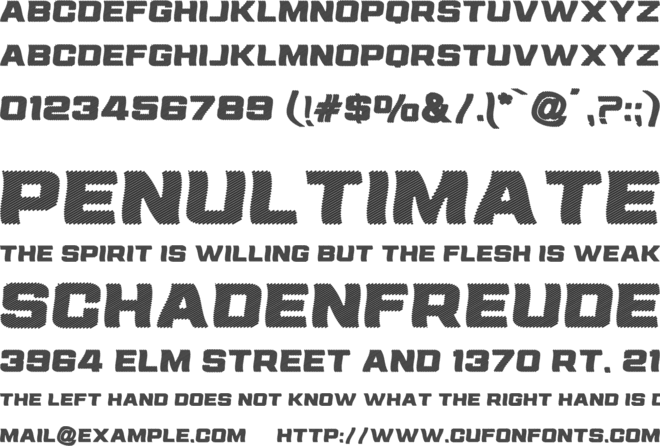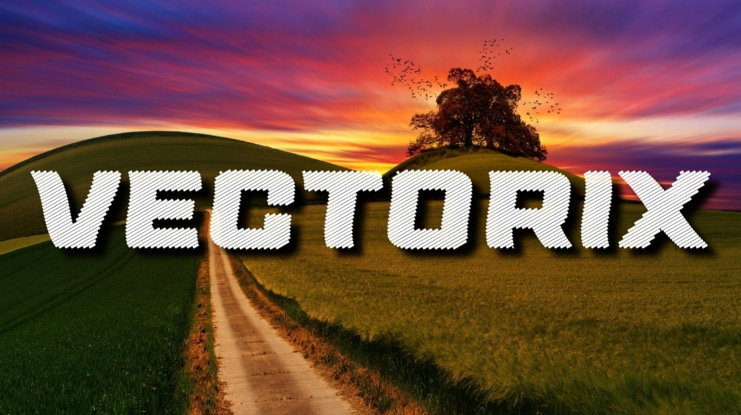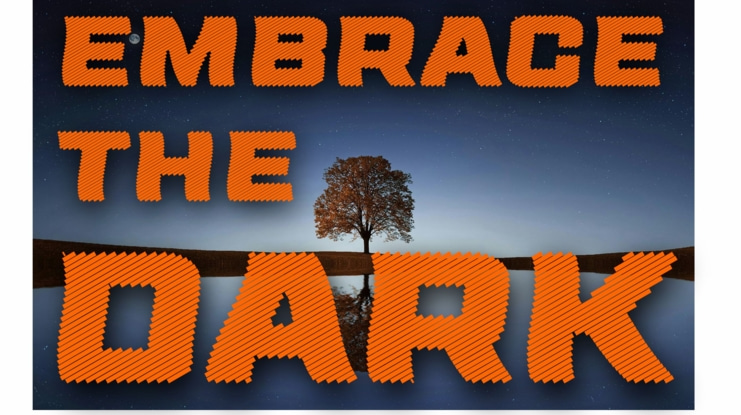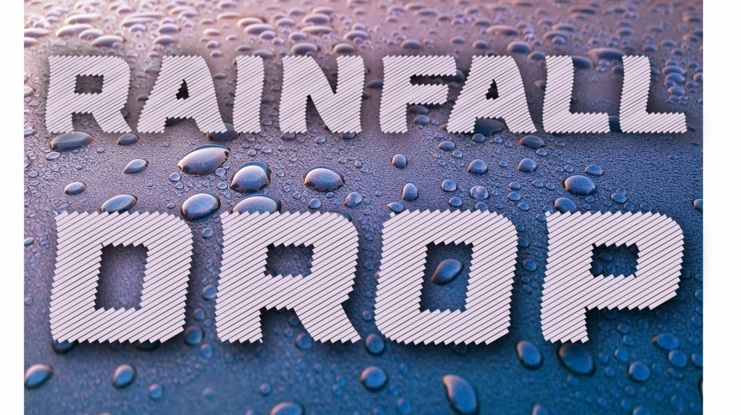
VECTORIX Font Family
Vectorix Font A modern, dynamic typeface inspired by sharp, geometric lines and the precision of vector-based design. Vectorix embodies a powerful and futuristic style, blending clean edges with sleek curves. Perfect for projects that demand strength, clarity, and a cutting-edge aesthetic, it’s the ideal choice for both digital and print applications. Whether you’re working on tech designs, branding, or bold creative ventures, Vectorix brings an edge of sophistication and innovation to your work.